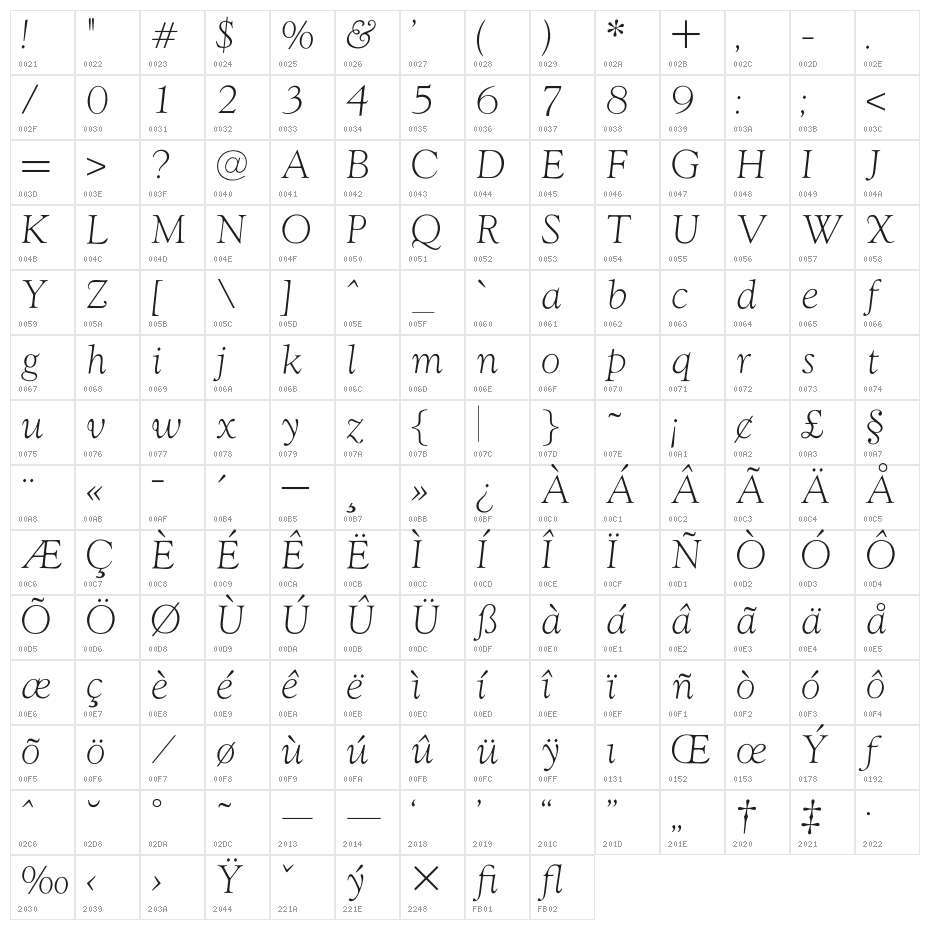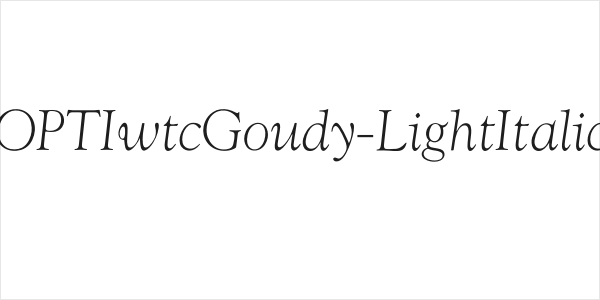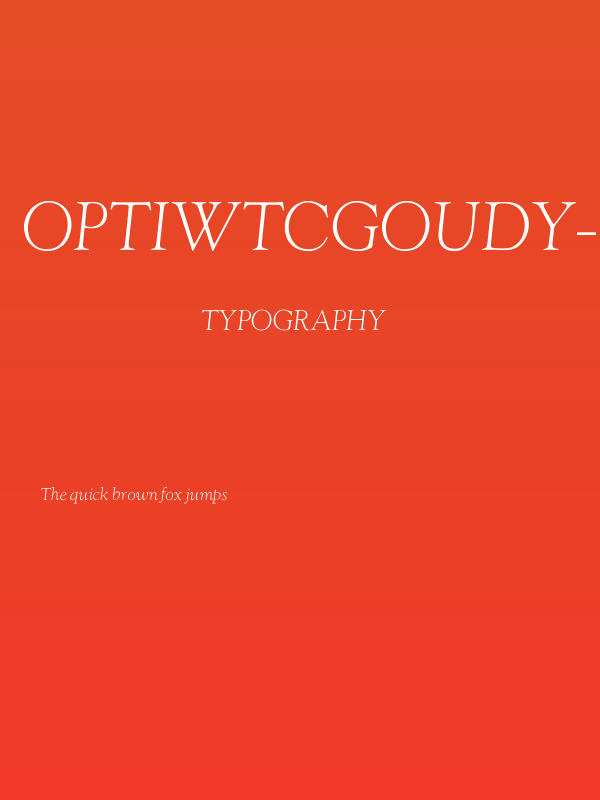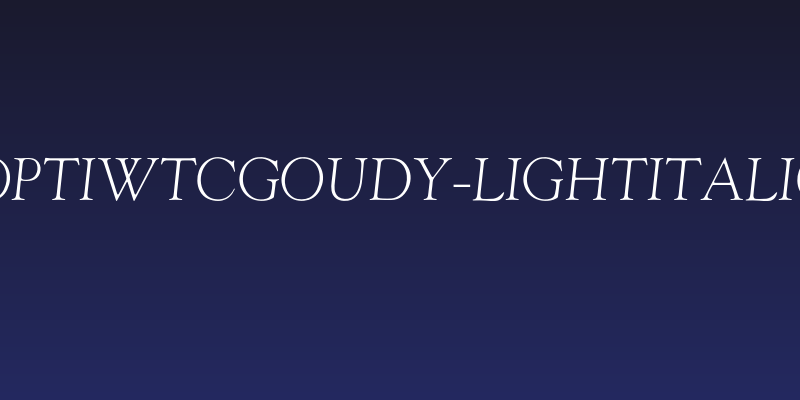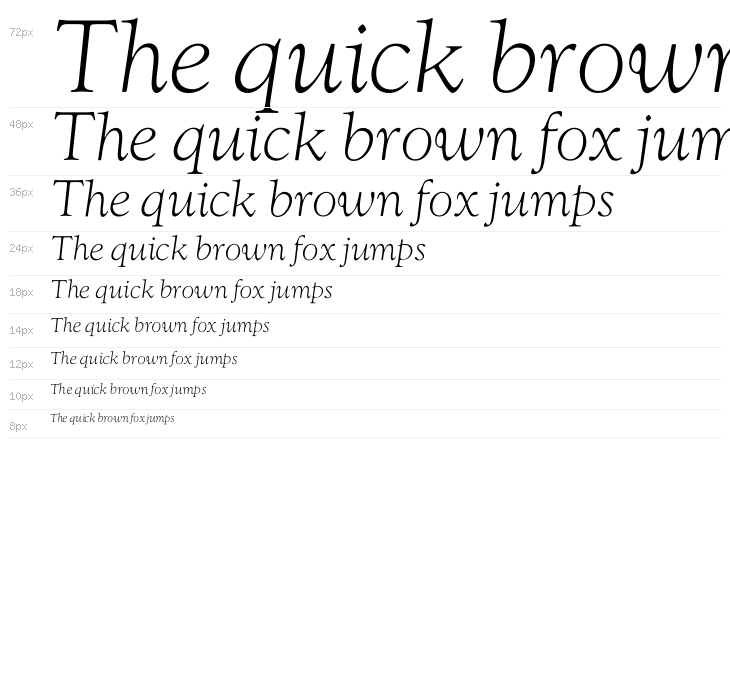
OPTIwtcGoudy-LightItalic Font
OPTIwtcGoudy-LightItalic Description
This font exhibits a classic elegance with its light and graceful strokes. The italicized form adds a sense of motion and sophistication, making it ideal for formal and refined applications. The uppercase letters are tall and slender, while the lowercase characters maintain a consistent flow with gentle curves. The numerals are clear and distinct, ensuring readability. Special characters are well-integrated, complementing the overall aesthetic. The font's delicate nature is balanced by its readability, making it suitable for both display and text purposes.
| Proposed Projects | Ideal for wedding invitations, formal event programs, elegant branding, and high-end editorial design. |